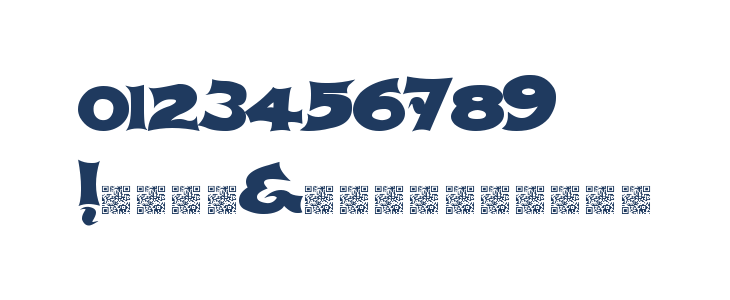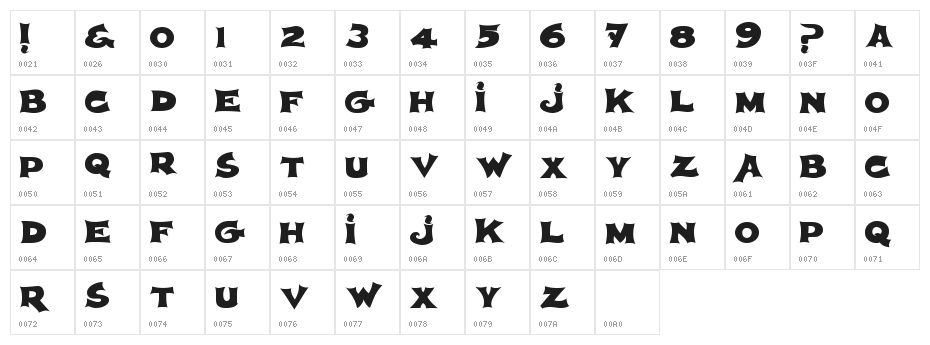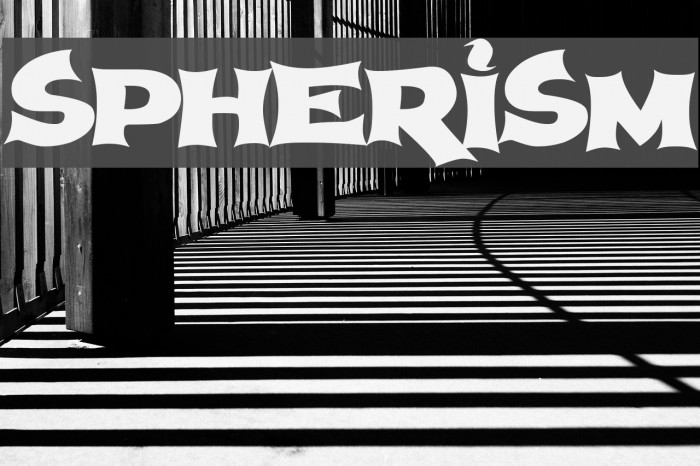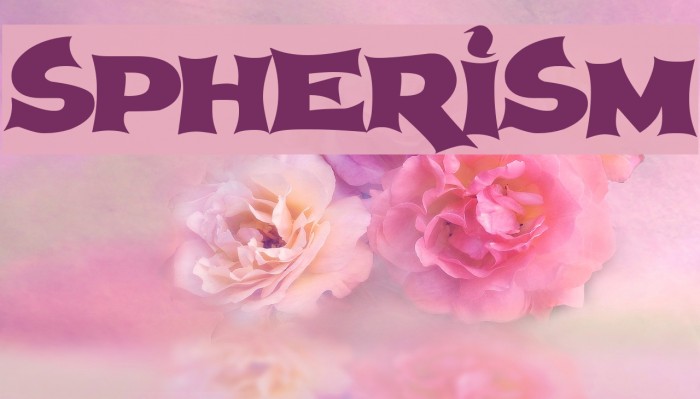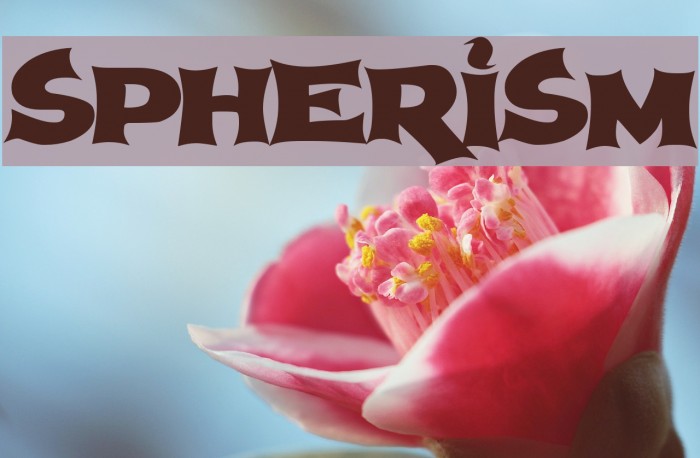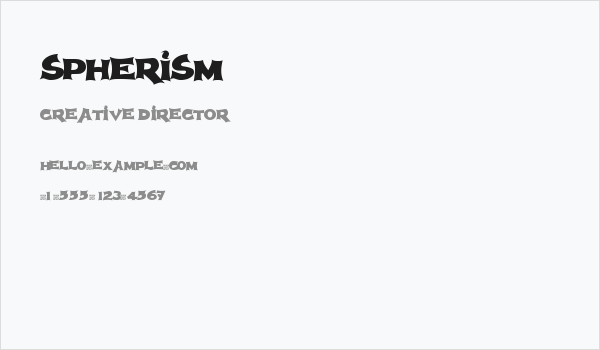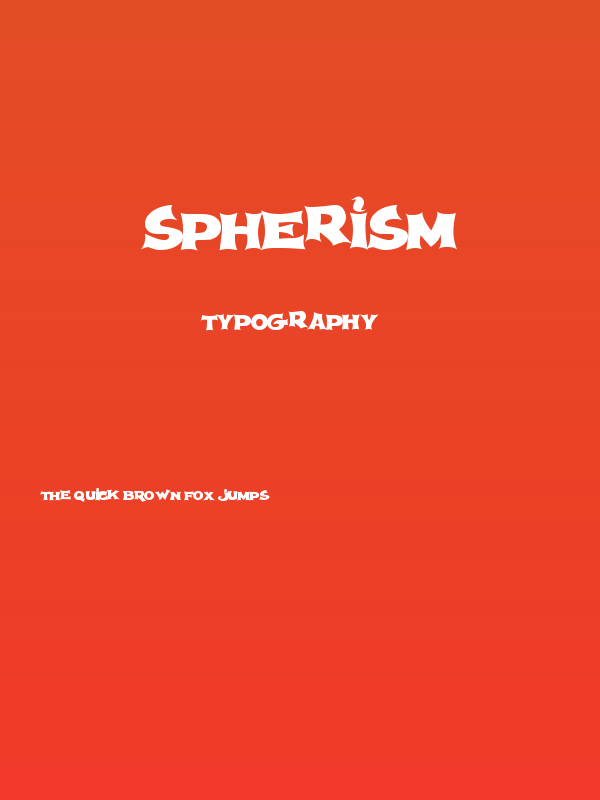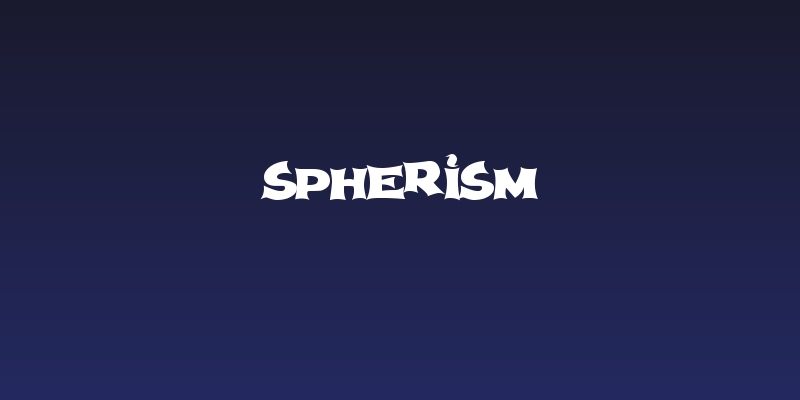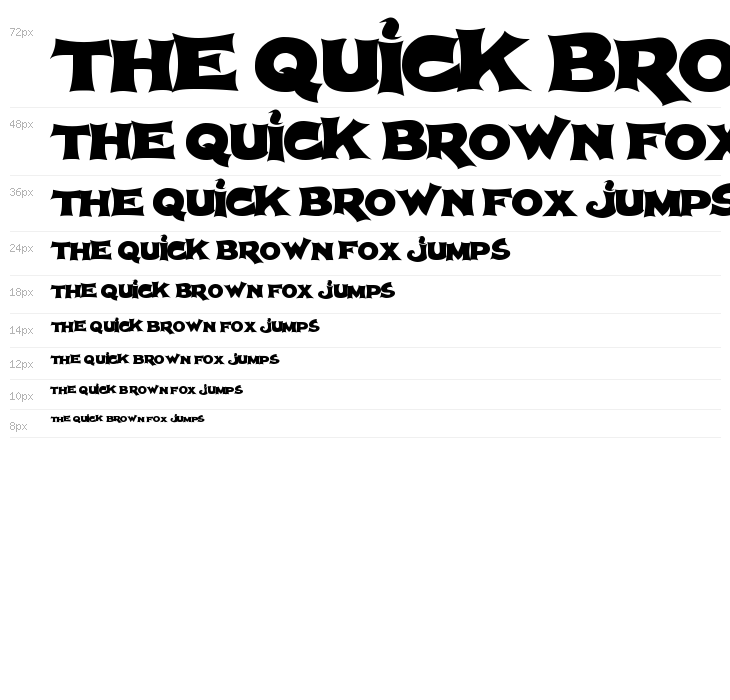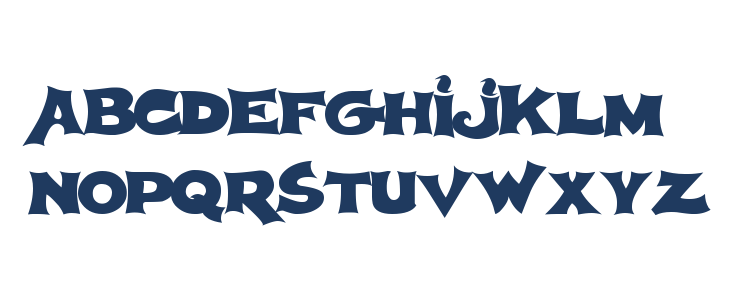
Spherism Font
Spherism Description
This font features a bold and dynamic style with exaggerated serifs and a playful, almost cartoonish appearance. The characters are wide and have a strong presence, making them stand out prominently. The strokes are thick and consistent, giving the font a robust and solid feel. The overall design is decorative, with unique curves and angles that add a sense of movement and energy. This font is ideal for projects that require a bold statement or a fun, engaging look.
| Proposed Projects | Ideal for posters, logos, video game titles, and any project needing a bold, eye-catching typeface. |